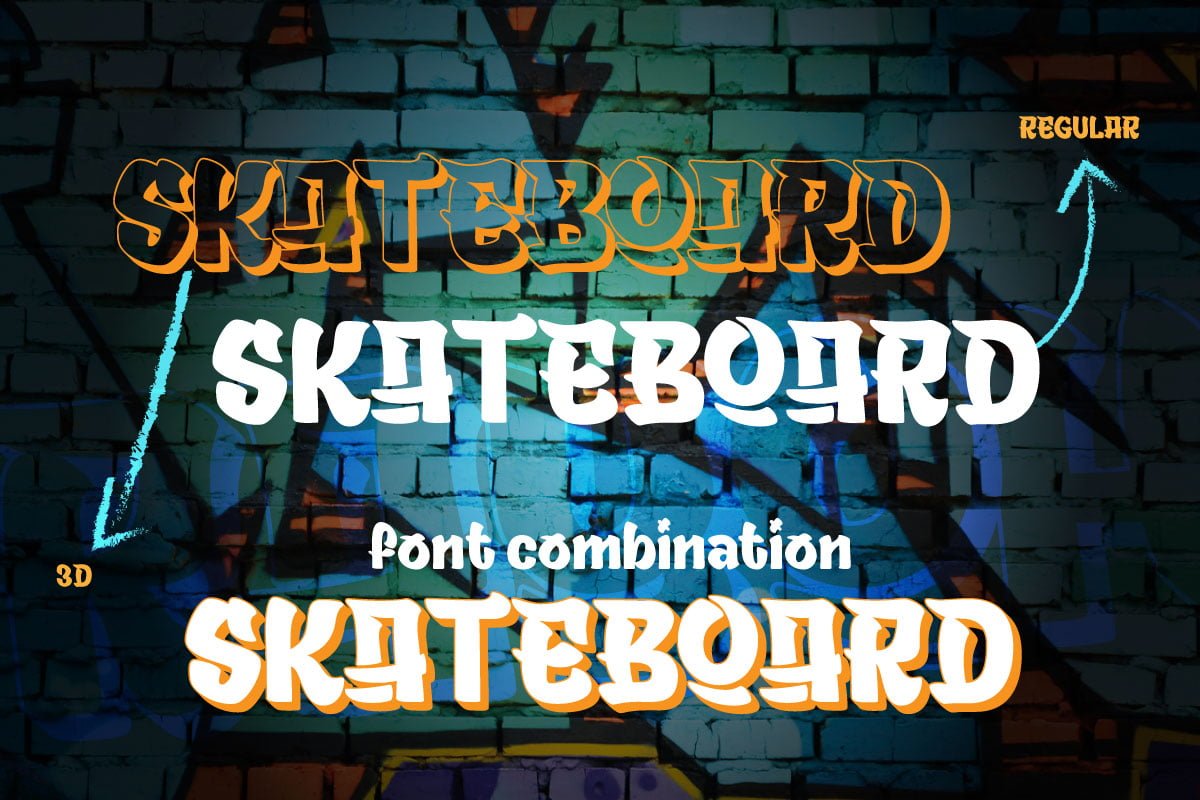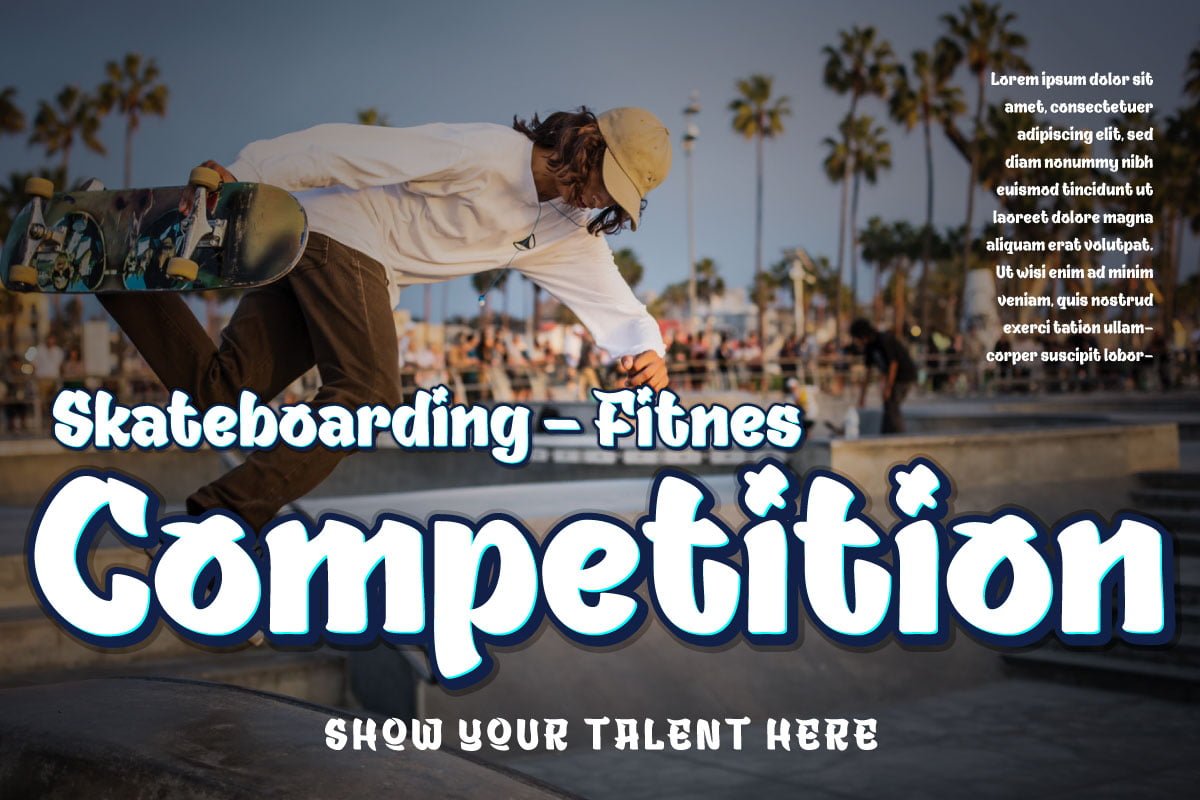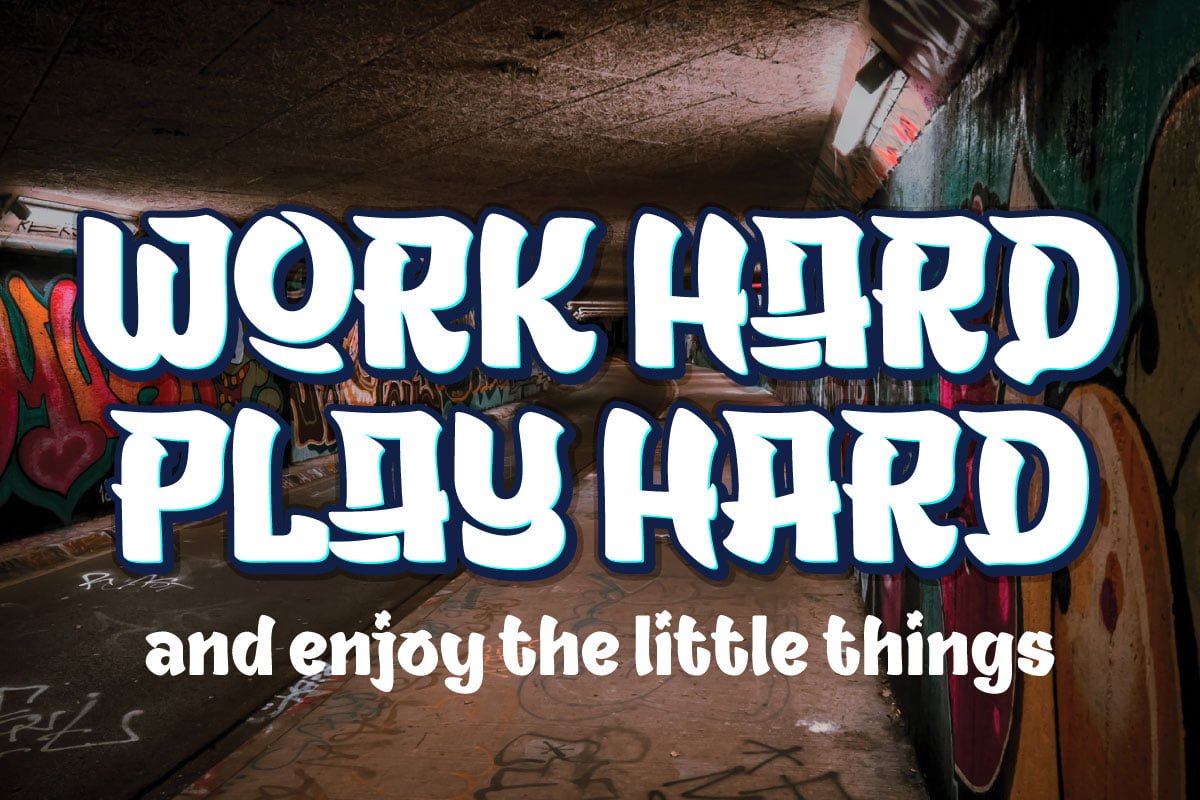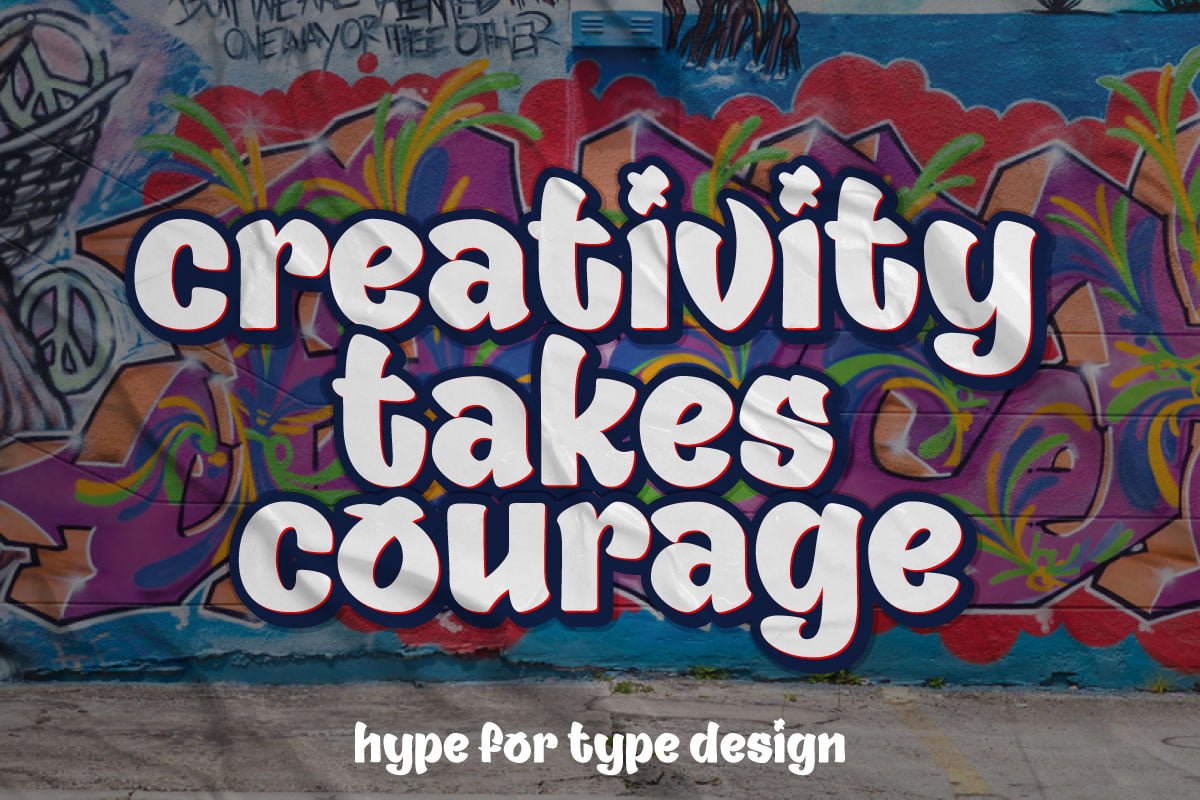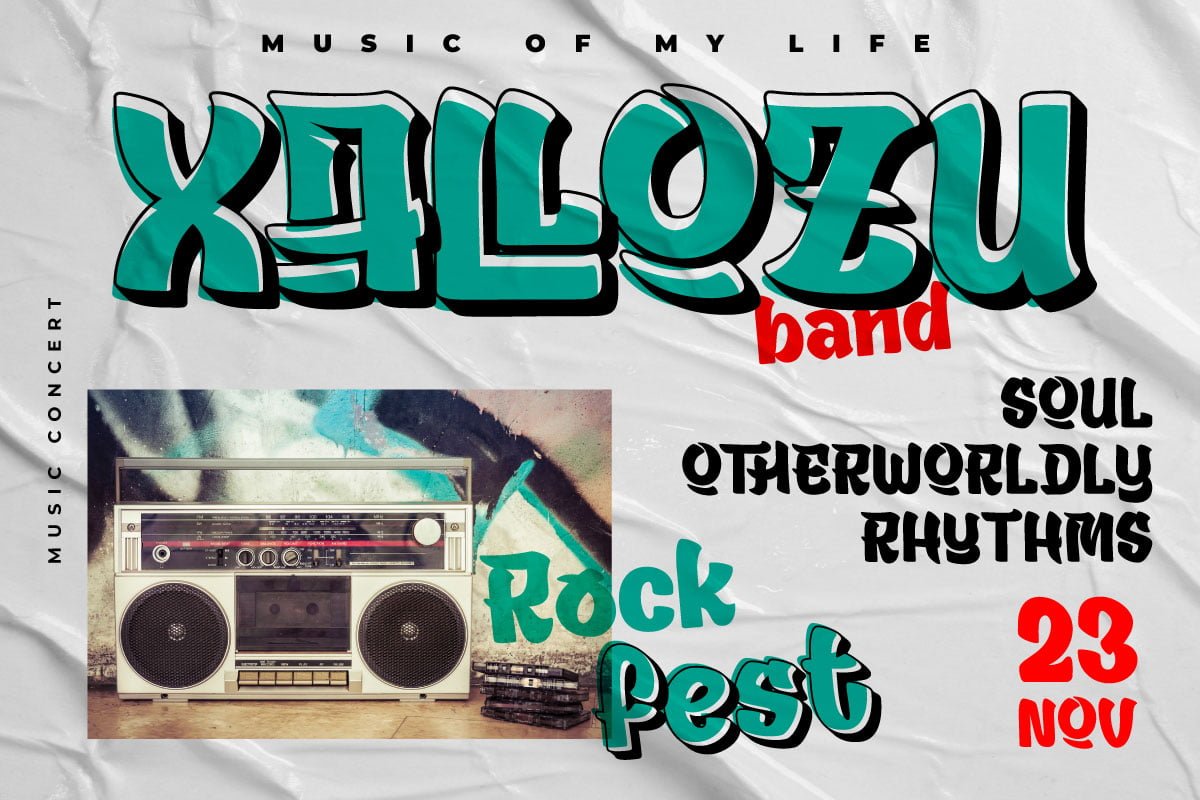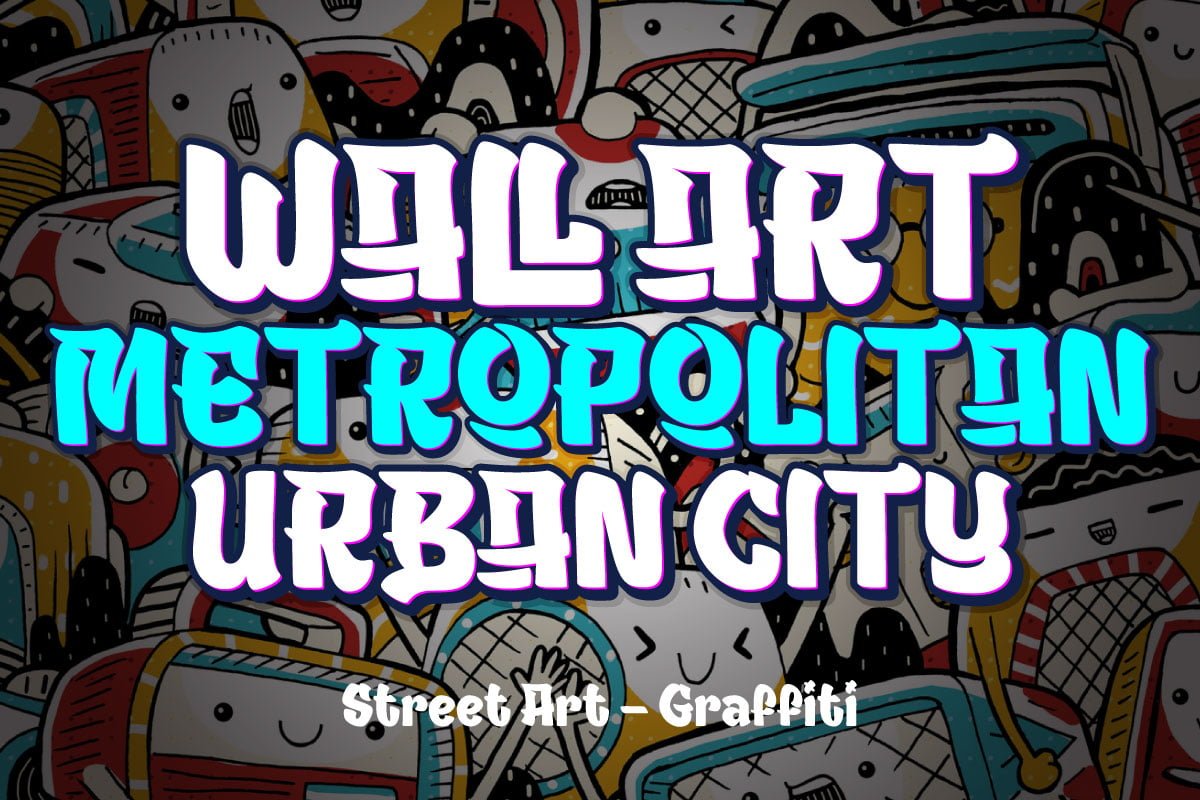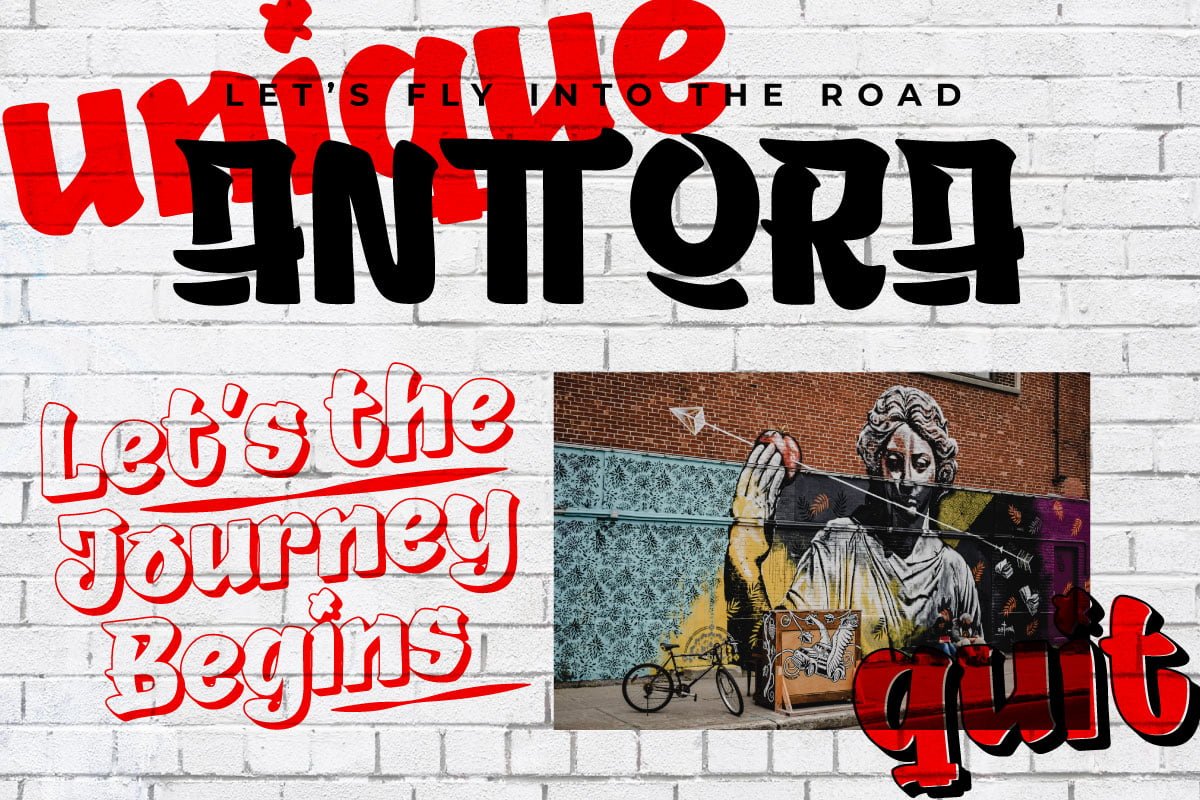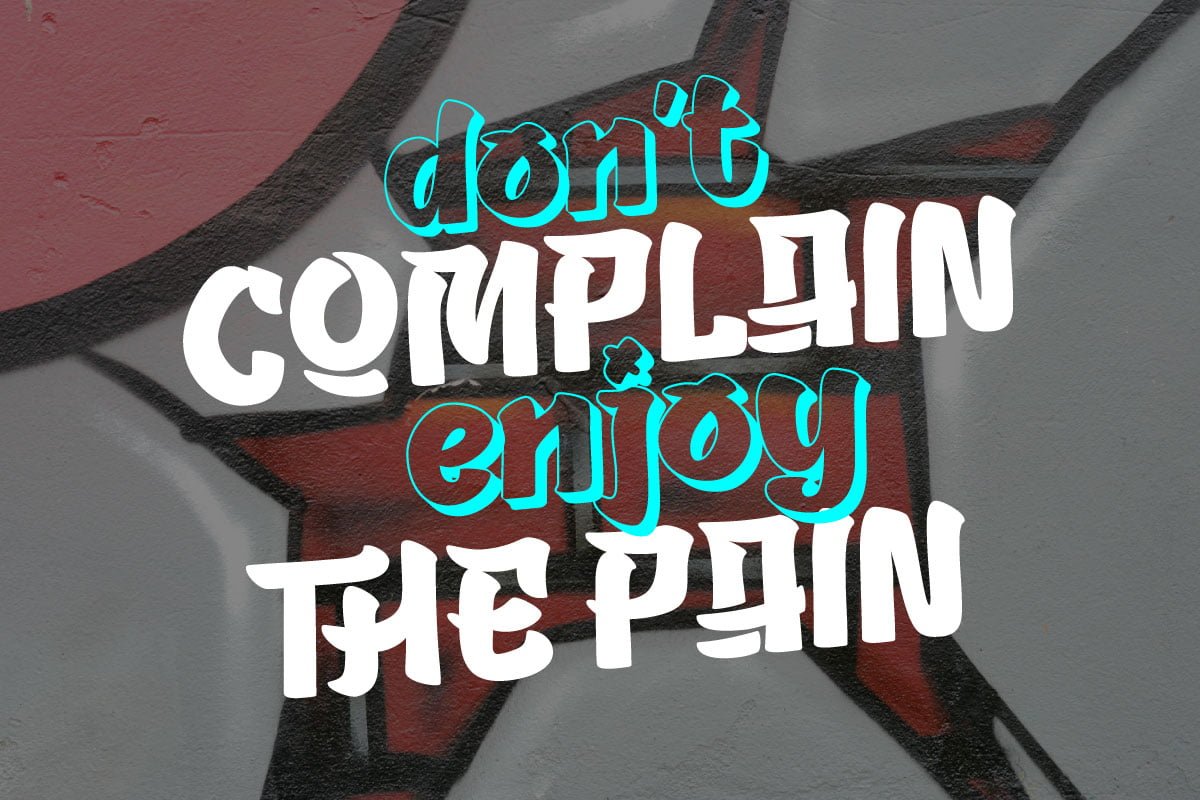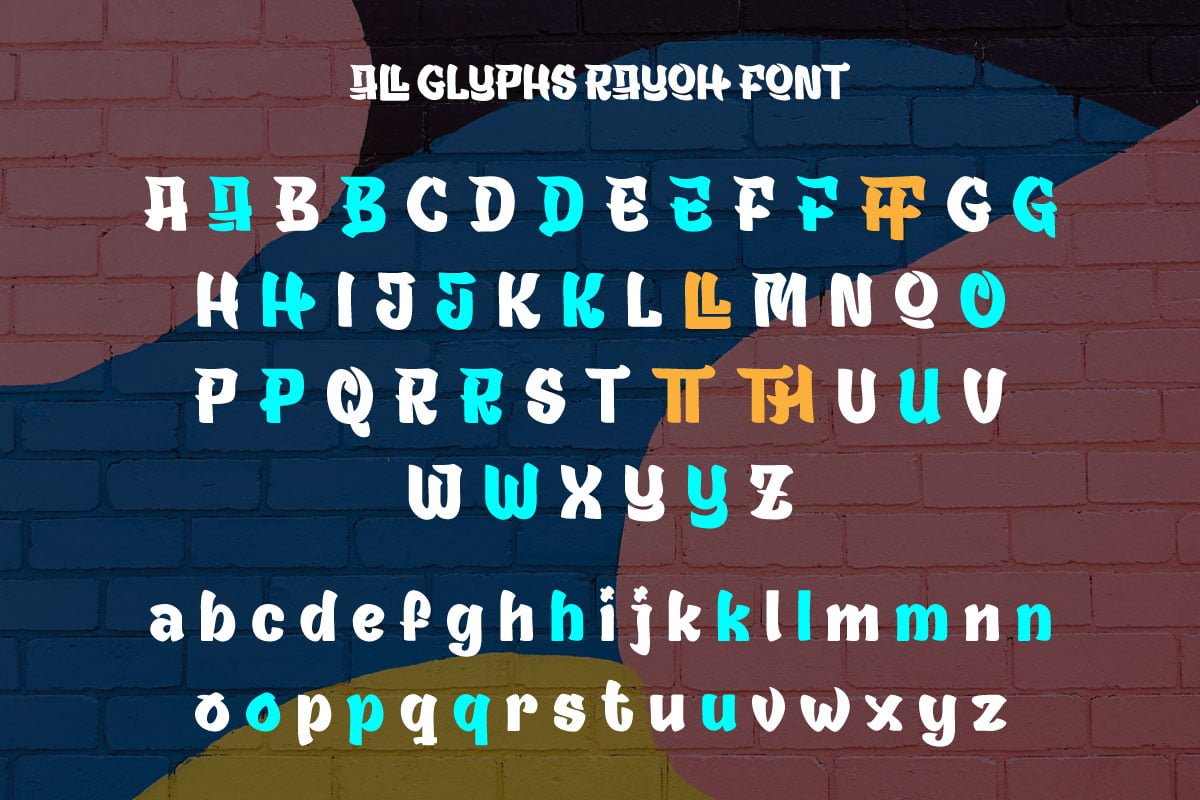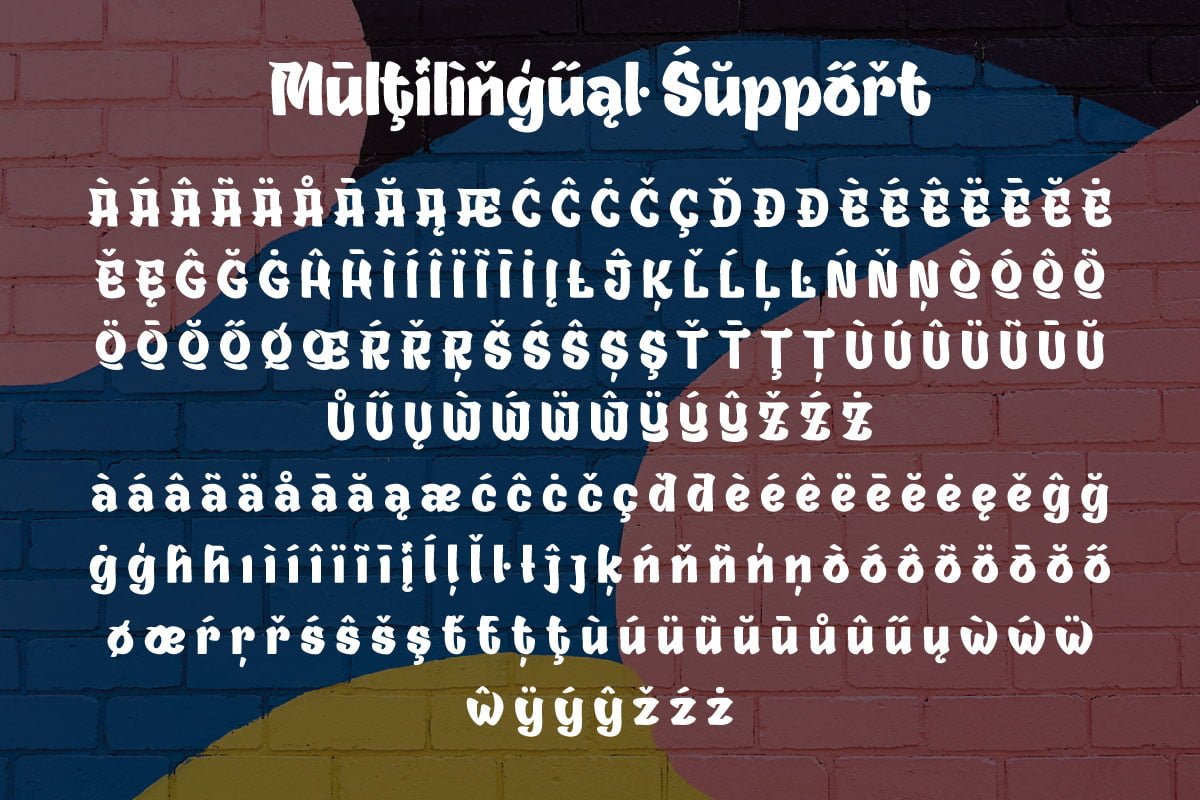
RAYOH – Display Graffiti Font
Rayoh is a stylish and freedom-loving graffiti display font. With two variations available, regular and shadow, this font gives a unique touch to projects that require rich and beautiful handwriting.
With Rayoh, you can bring freedom and creativity to your designs. This font combines bold graffiti and beautiful handwriting elements to create an amazing combination.
Expressive designs and bold characters make Rayoh the perfect solution for projects that want to stand out. With this font, you can create a striking poster, a cool merchandise design, or unforgettable promotional material.
Their different variations provide flexibility in customizing the desired style and effect. Use regularly for a plain look and bring out the beauty of handwriting, or choose shadow for a dramatic shadow effect that adds depth and dimension to your design.
Rayoh is the right choice for those who want to add a touch of freedom and uniqueness to their creative projects. Immediately choose Rayoh as your flagship font and see how your design steals attention and attracts potential customers in no time.